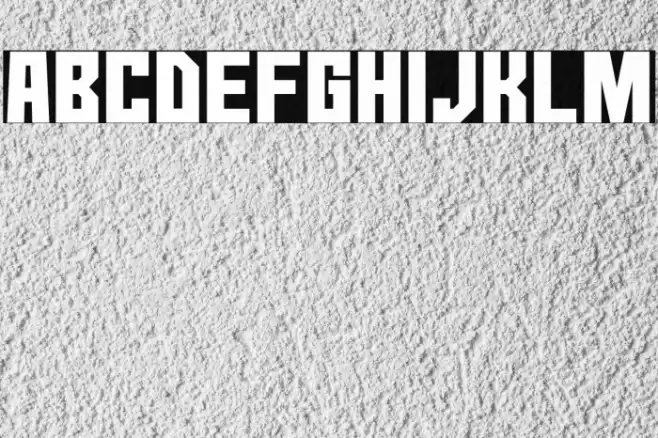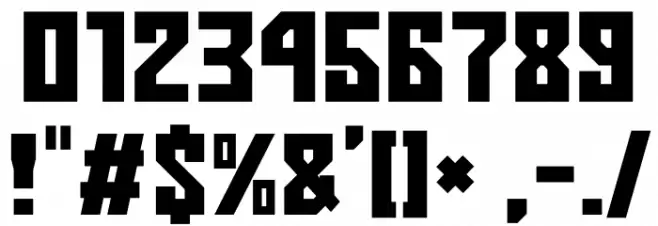
No Continue Font
No Continue Description
This font features a bold, geometric design with strong, angular lines and a blocky appearance. Each character is crafted with a uniform thickness, creating a cohesive and impactful look. The uppercase letters are particularly striking, with a commanding presence that demands attention. The numerals and special characters maintain the same bold style, ensuring consistency across all text. This font is ideal for projects that require a strong visual impact, such as posters, headlines, and branding materials. Its distinct style makes it suitable for modern and edgy designs.
A bold, geometric font with strong, angular lines and a blocky appearance from Uncategorized fonts.